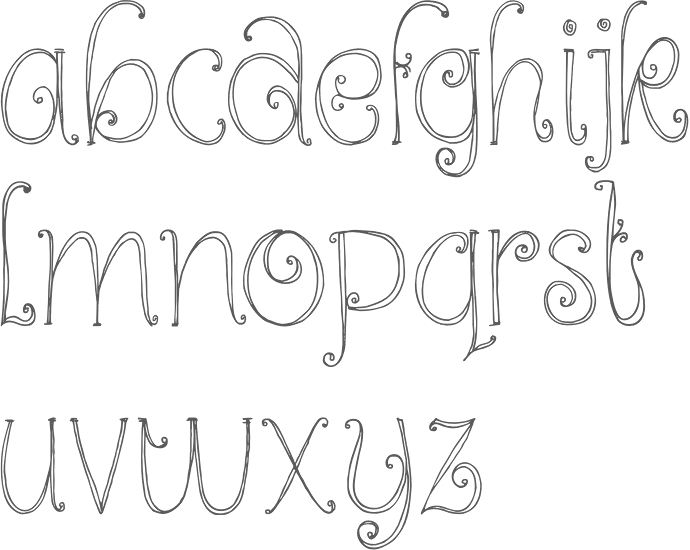
Hanoded [David Kerkhoff]
Hanoded is the foundry (est. 2010) of Dutch designer and photographer David Kerkhoff, b. Epe / Vaassen, 1969. In its first year, Hanoded was a free font outfit specializing in handwriting and hand-printed typefaces. Its creations could be seen at Dafont, Abstract Fonts and Fontspace. Fontspring link. Klingspor link.
In 2011, he went partially commercial via MyFonts. His typefaces became more diversified and are quite stunning at times: